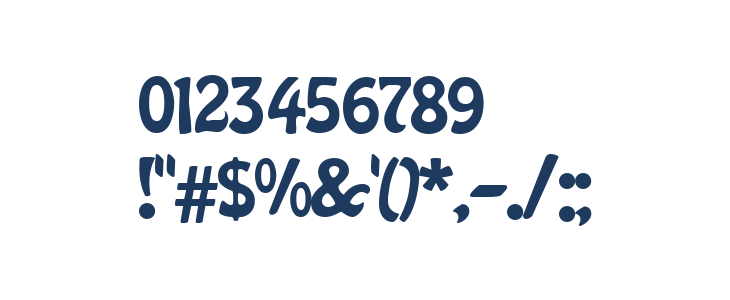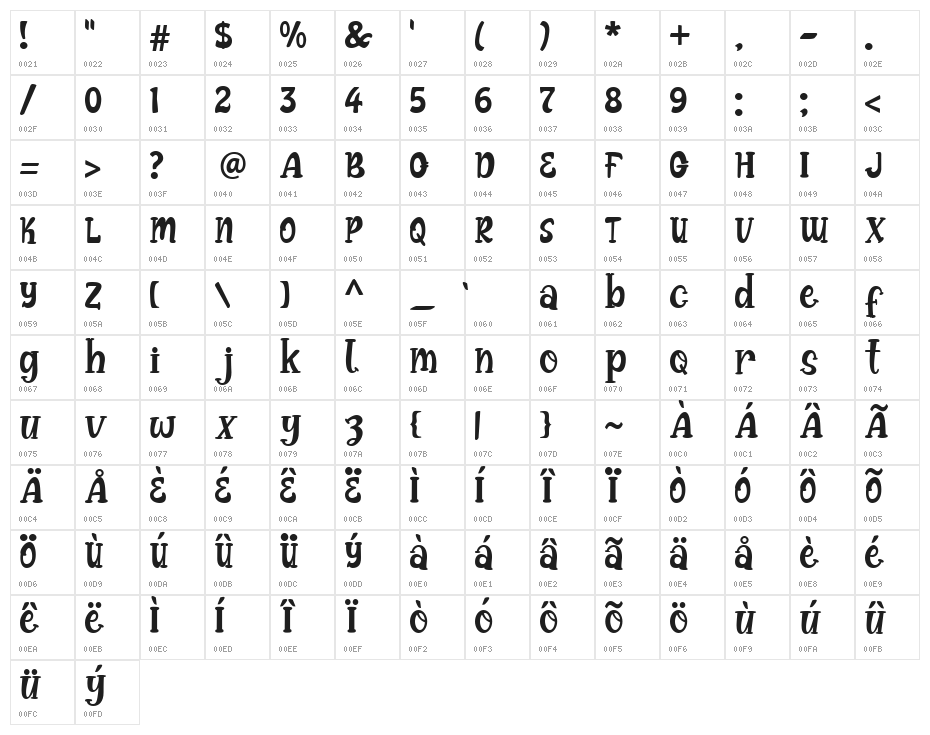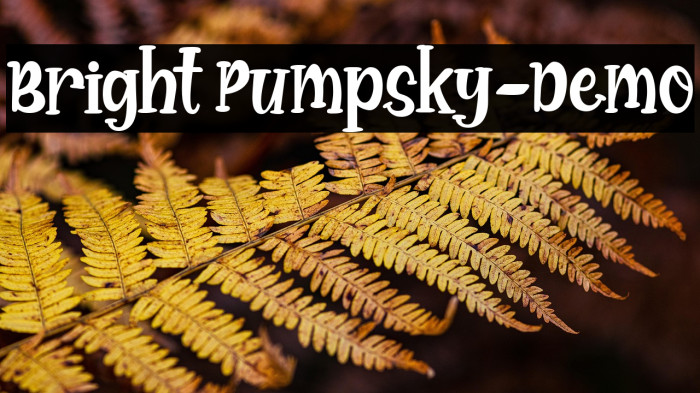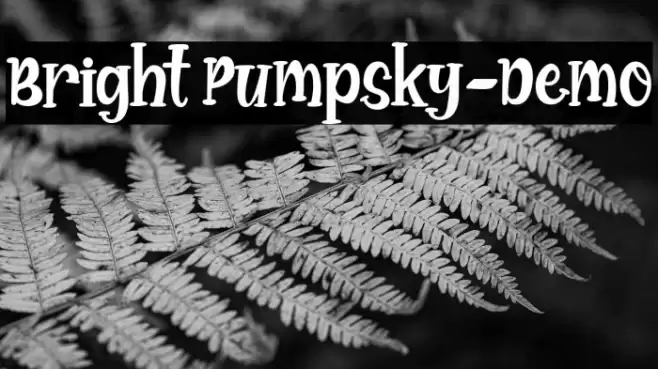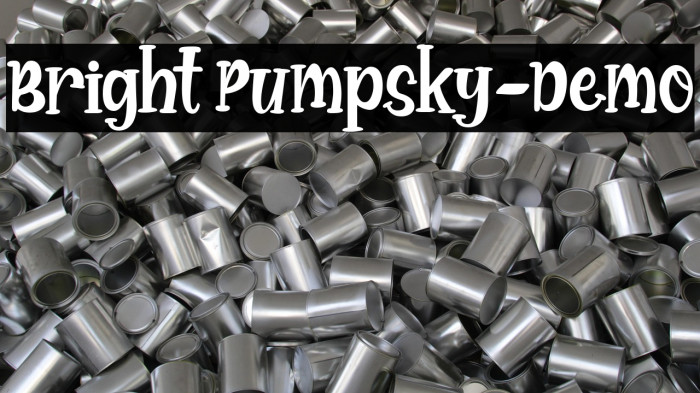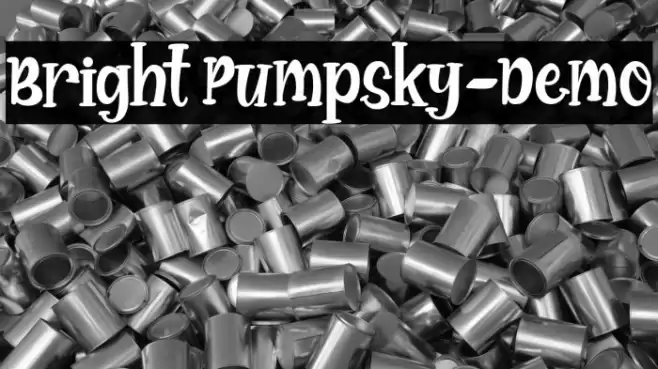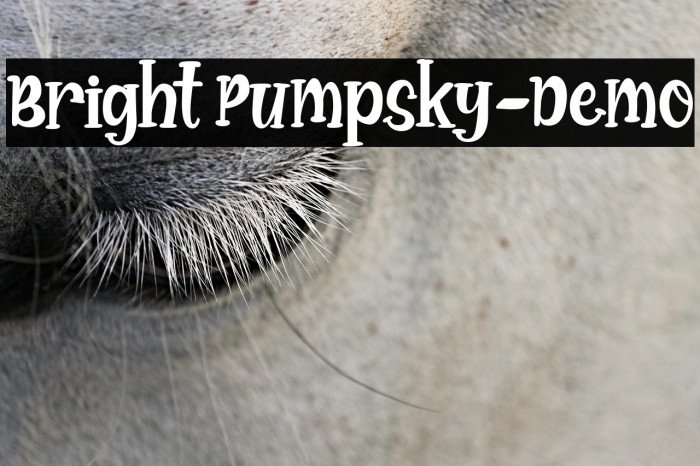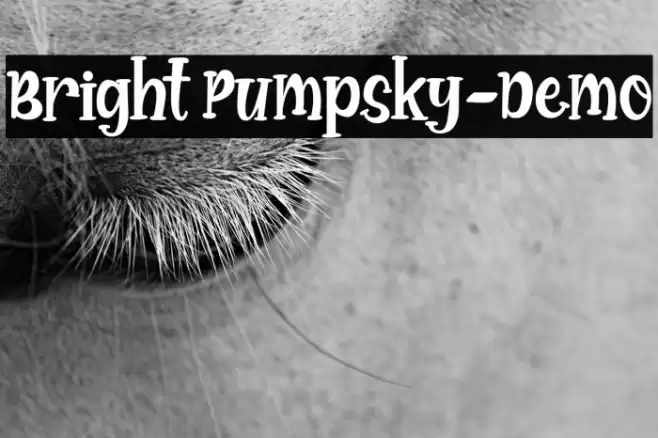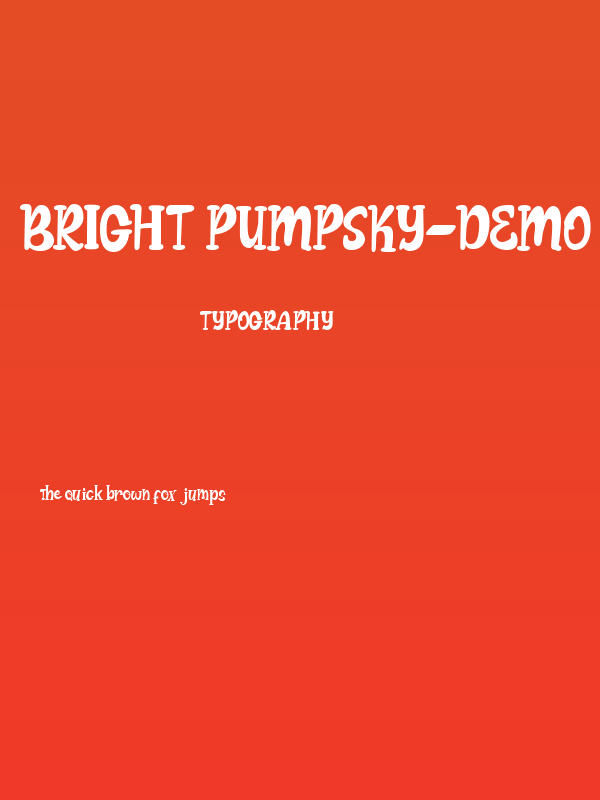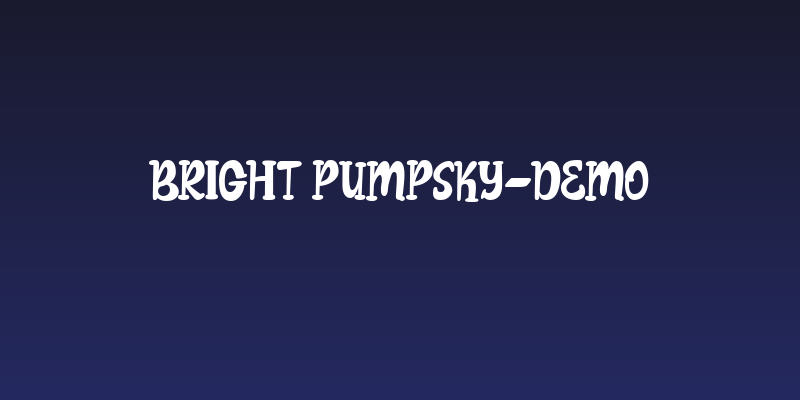
Bright Pumpsky-Demo Font
Bright Pumpsky-Demo Description
This font features a playful and whimsical design, characterized by its bold and rounded letterforms. The strokes are thick and consistent, giving it a strong presence on the page. The uppercase letters have a quirky charm with slight variations in line width, while the lowercase letters maintain a more uniform appearance. The numbers are bold and easy to read, complementing the overall style. Special characters are creatively designed, adding to the font's unique personality. This font is ideal for projects that require a fun and engaging aesthetic.